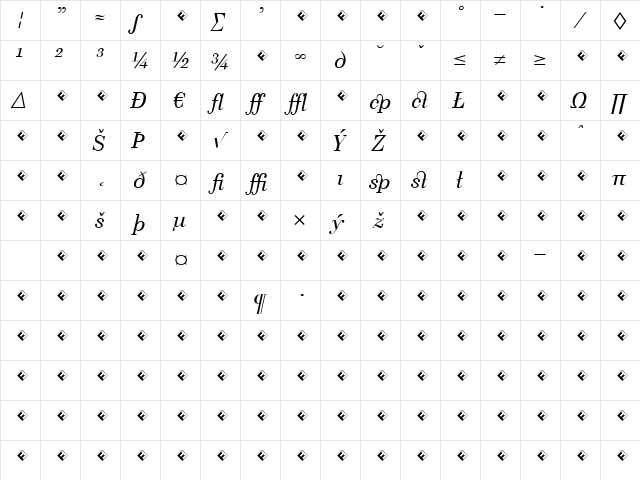
CelliniTitling-ItalicExpert Regular
| Designer | Albert Boton |
Design Context for CelliniTitling-ItalicExpert Typeface
CelliniTitling-ItalicExpert is a composed and adaptable typeface that performs quietly and consistently across a wide range of design contexts. The dynamic lean of this cut emphasises speed and emphasis in any layout.